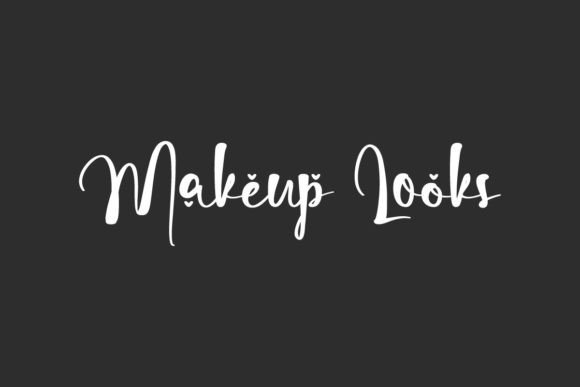
Unleash your inner artist with Makeup Looks Font, a script font that exudes pure elegance and charm. Dive into a world of creative possibilities, where your designs come alive with a touch of timeless beauty.
This enchanting font, meticulously crafted by vintype, captures the essence of romance and femininity. Its flowing lines and playful ornaments dance across the page, evoking a sense of enchantment and allure.
Picture this: a wedding invitation adorned with Makeup Looks Font, its intricate details adding an air of sophistication and grace to your special day. Or perhaps, a fashion magazine layout where the font's delicate strokes lend an ethereal quality to the featured garments.
The possibilities are endless with Makeup Looks Font. Its versatility extends to branding, logo design, social media graphics, and countless other projects where a touch of elegance is desired.
Imagine the impact of your cosmetics brand logo, rendered in the sweeping lines of Makeup Looks Font. Its inherent charm will captivate your audience, drawing them into your world of beauty and style.
For fashionistas, Makeup Looks Font is the perfect partner in creating visually stunning marketing materials. Its ability to convey elegance and sophistication will elevate your brand to new heights.
And for florists, jewelry designers, and makeup artists, Makeup Looks Font provides the perfect canvas to showcase your exquisite creations. Its romantic undertones will add a touch of magic to your designs, leaving a lasting impression on your clients.